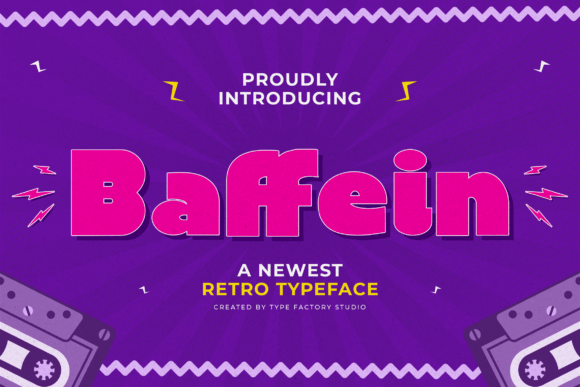
Baffein Font: The Ultimate Retro Typeface for Bold Designs
In the world of typography, fonts play a crucial role in conveying the tone and personality of a brand or design. With the vast array of fonts available, it can be challenging to find the perfect one that captures the essence of your project. However, if you’re looking for a typeface that exudes confidence, nostalgia, and a touch of modernity, look no further than Baffein Font.
What is Baffein Font?
Baffein is a bold retro typeface that seamlessly blends nostalgic style with striking confidence. Inspired by vintage signage and classic 70s aesthetics, Baffein features thick, rounded characters that command attention and make a lasting impression. This typeface is perfect for designers who want to add a timeless retro flair with a modern edge to their work.
The Design Inspiration Behind Baffein
The Baffein font is deeply rooted in the design trends of the 1970s. During this era, typography was bold, colorful, and playful. Signage, posters, and advertisements often featured thick, rounded letterforms that conveyed a sense of fun and approachability. Baffein draws inspiration from this iconic design period, updating the classic aesthetic with a modern twist.
The font’s creator aimed to capture the essence of vintage design while making it relevant for contemporary projects. As a result, Baffein boasts a unique character that is both nostalgic and fresh. Its rounded edges and bold strokes evoke a sense of warmth and friendliness, making it perfect for designs that require a personal touch.
The Many Uses of Baffein Font
Baffein is an incredibly versatile typeface that can be used in a wide range of design applications. Its bold and eye-catching appearance makes it ideal for projects that require a strong visual impact. Here are some of the most popular uses of Baffein font:
- Logos: Baffein’s unique character makes it perfect for logos that need to stand out. Its bold and confident appearance ensures that your brand’s identity is memorable and recognizable.
- Headlines: Whether you’re working on a poster, advertisement, or editorial piece, Baffein is an excellent choice for headlines. Its thick, rounded characters grab attention and draw the reader in.
- Posters: Baffein’s retro aesthetic makes it a natural fit for poster design. Use it to create bold and eye-catching posters that showcase your message or artwork.
- Apparel: Baffein’s fun and playful character makes it perfect for apparel design. Use it to create bold and stylish t-shirts, hoodies, or hats that make a statement.
- Packaging: Baffein’s unique character can help your product stand out on store shelves. Use it to create eye-catching packaging that reflects your brand’s personality.
The Benefits of Using Baffein Font
So, why choose Baffein font for your next design project? Here are some benefits of using this versatile typeface:
- Timeless appeal: Baffein’s retro aesthetic is timeless, ensuring that your design remains relevant for years to come.
- High visual impact: Baffein’s bold and confident appearance makes it perfect for designs that require a strong visual impact.
- Versatility: Baffein can be used in a wide range of design applications, from logos and headlines to posters and apparel.
- Easy to read: Despite its bold appearance, Baffein is surprisingly easy to read, making it perfect for designs that require a clear and concise message.
Tips for Using Baffein Font
To get the most out of Baffein font, here are some tips to keep in mind:
- Use it sparingly: Baffein’s bold appearance can be overwhelming if overused. Use it sparingly to create a strong visual impact.
- Pair it with contrasting fonts: Baffein pairs well with contrasting fonts that have a more minimalist or elegant appearance.
- Experiment with colors: Baffein’s retro aesthetic lends itself well to bold and bright colors. Experiment with different color schemes to find the perfect combination for your design.
In conclusion, Baffein font is a bold retro typeface that blends nostalgic style with striking confidence. Its unique character, versatility, and timeless appeal make it perfect for a wide range of design applications. Whether you’re working on a logo, headline, poster, or apparel, Baffein is an excellent choice for designers who want to add a touch of grooviness to their work. With its high visual impact and easy-to-read appearance, Baffein is sure to bring bold personality and a touch of retro flair to every design.
Final Thoughts
In today’s fast-paced design world, it’s easy to get lost in the sea of fonts and typography trends. However, Baffein font stands out as a unique and refreshing addition to the world of typography. Its bold and confident appearance, combined with its nostalgic aesthetic, makes it a must-have for designers who want to create bold and eye-catching designs. Whether you’re a seasoned designer or just starting out, Baffein font is definitely worth adding to your typography toolkit.